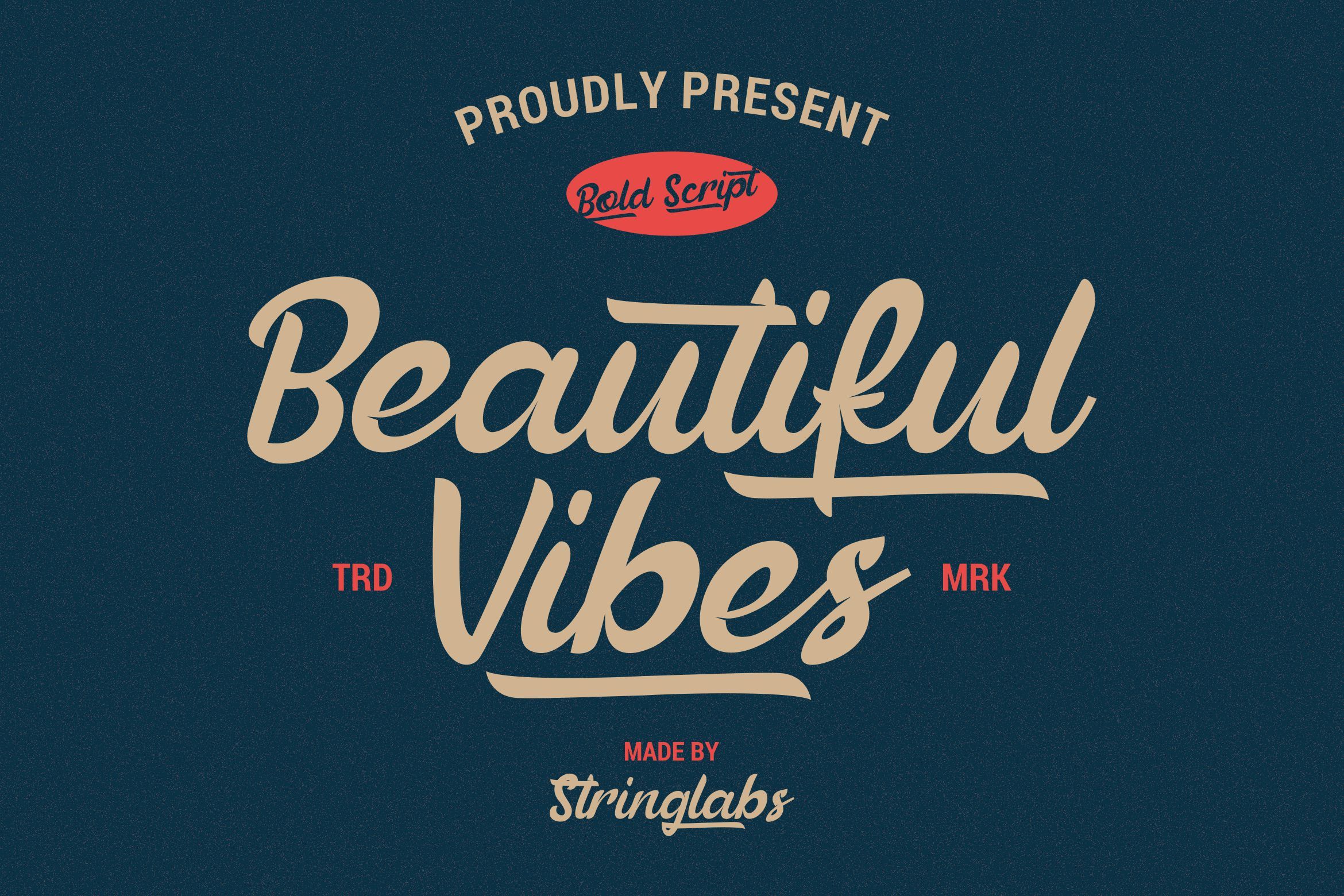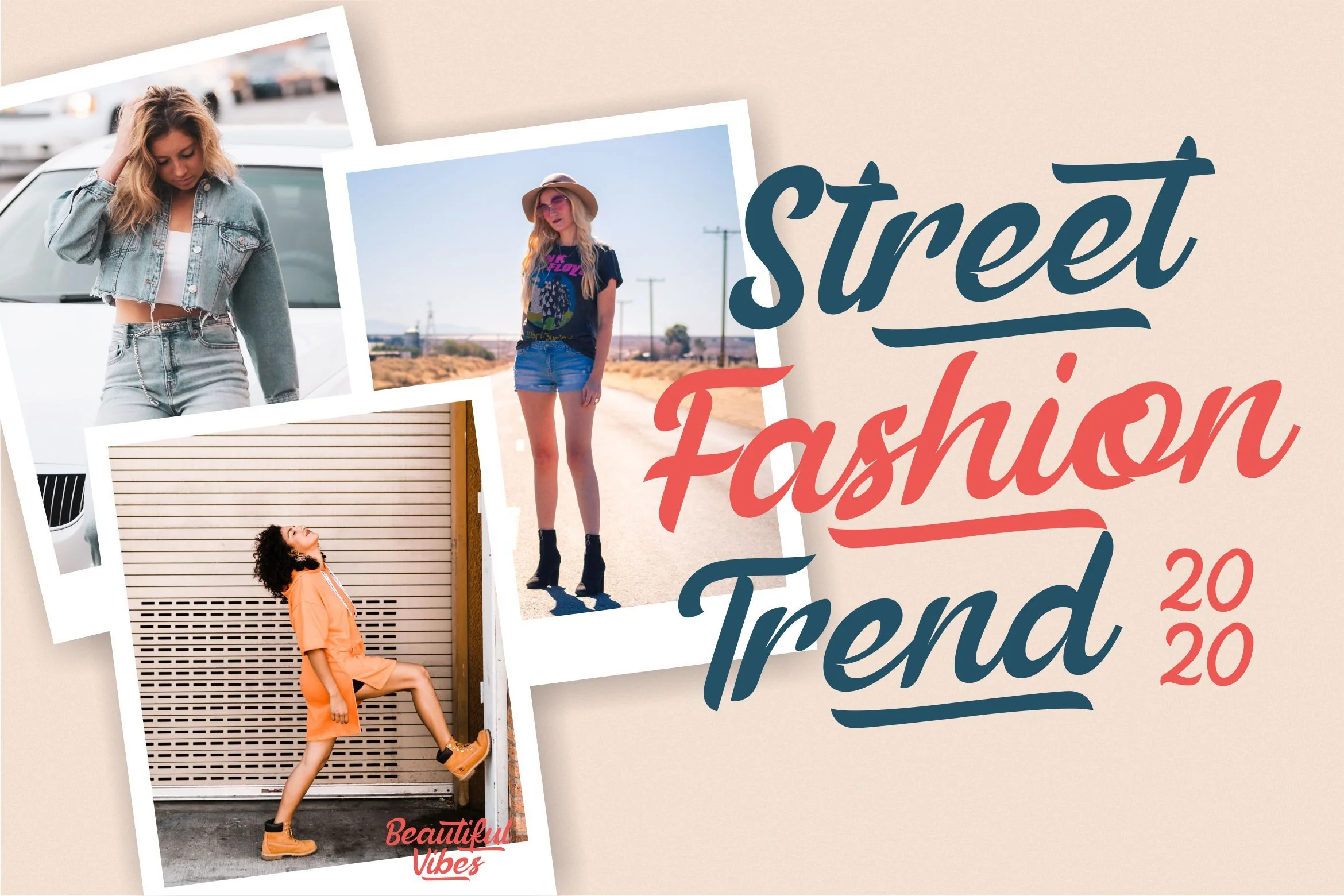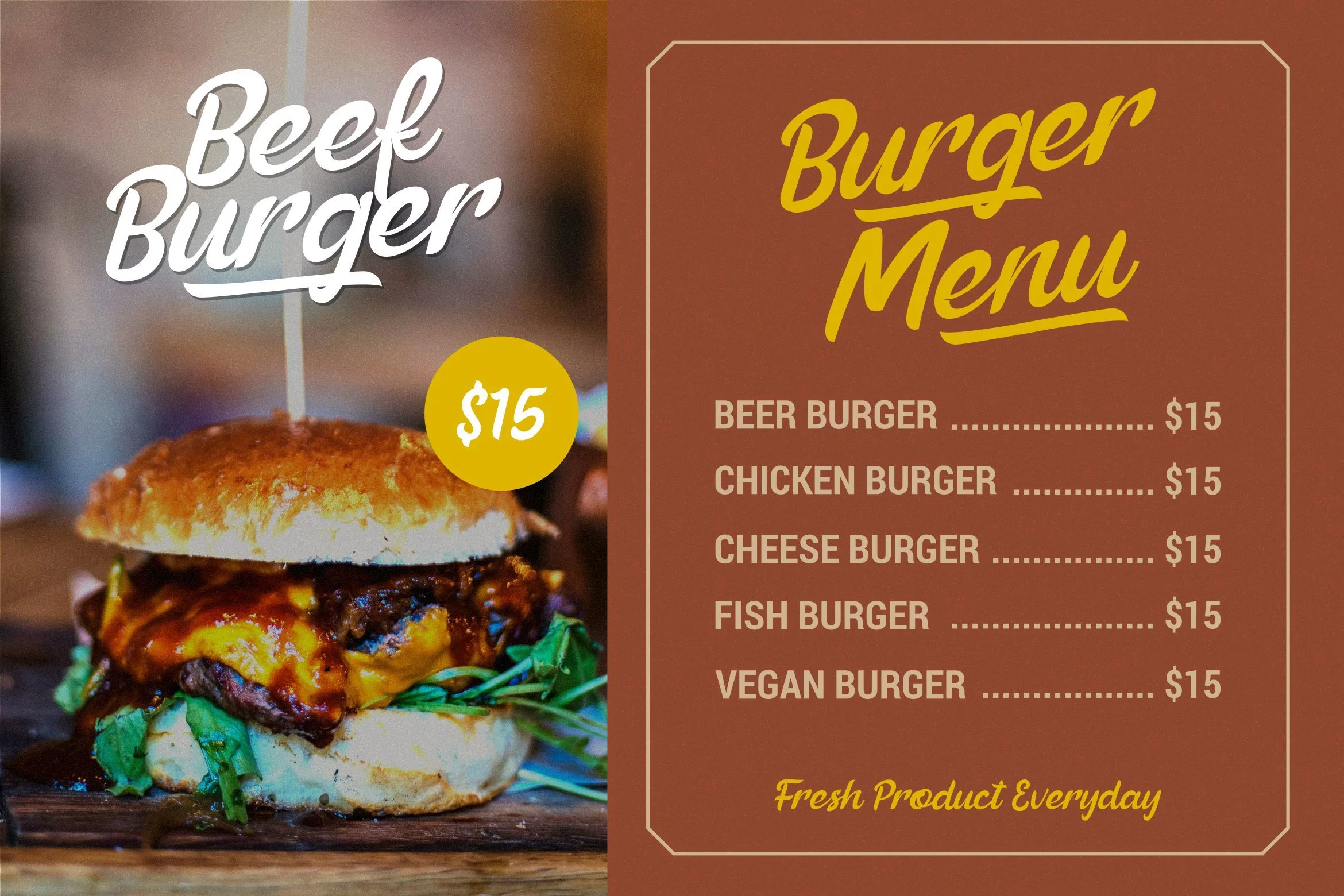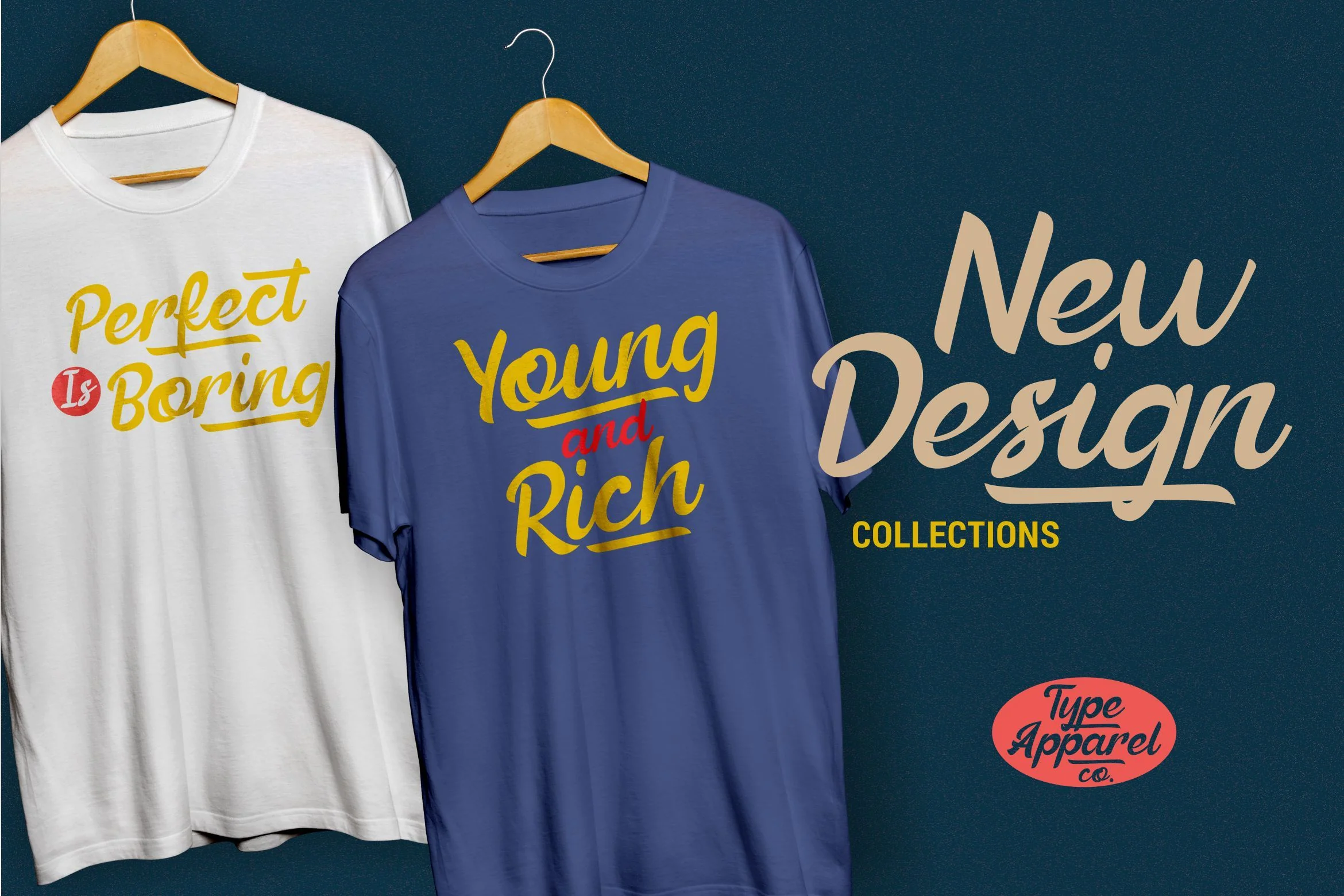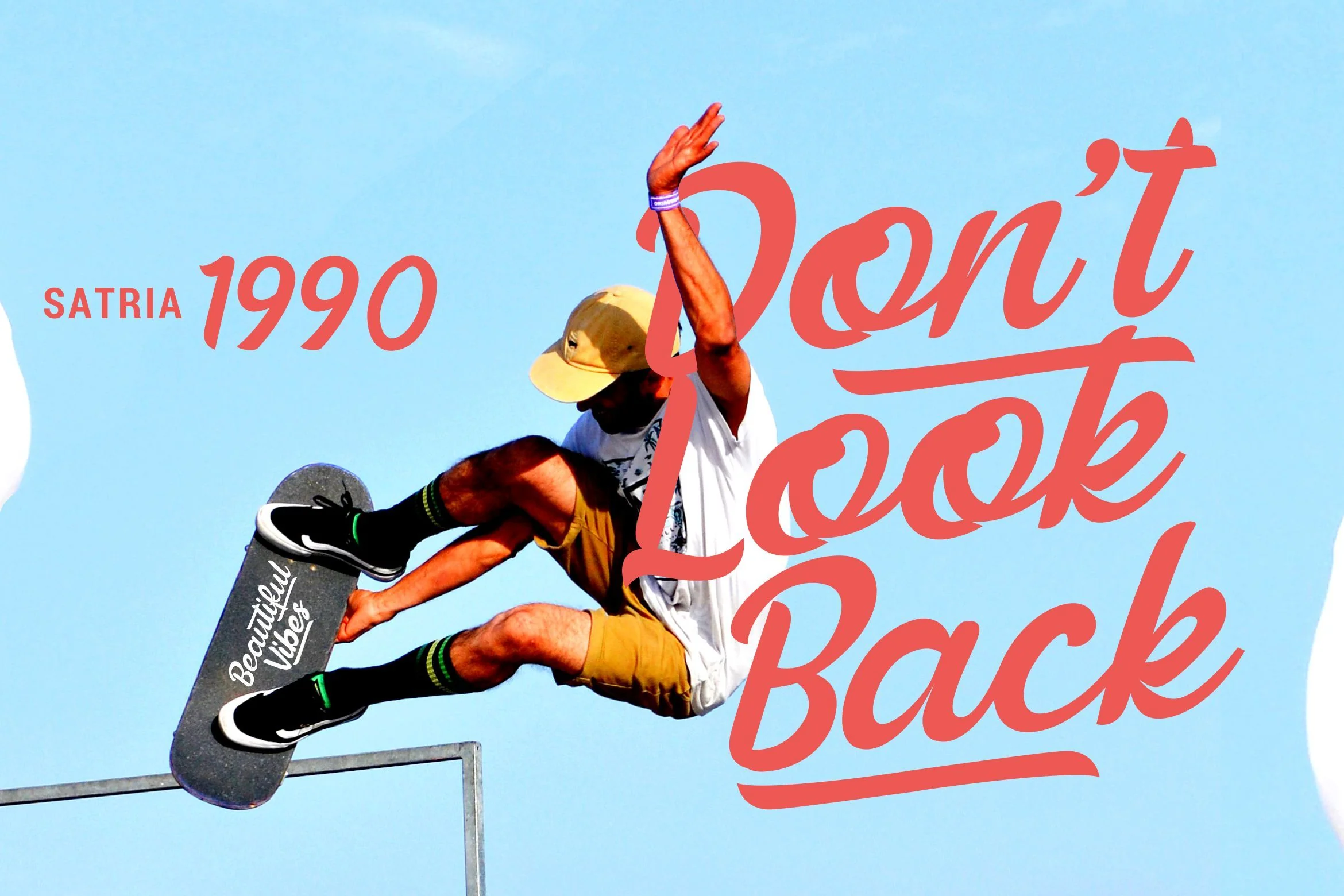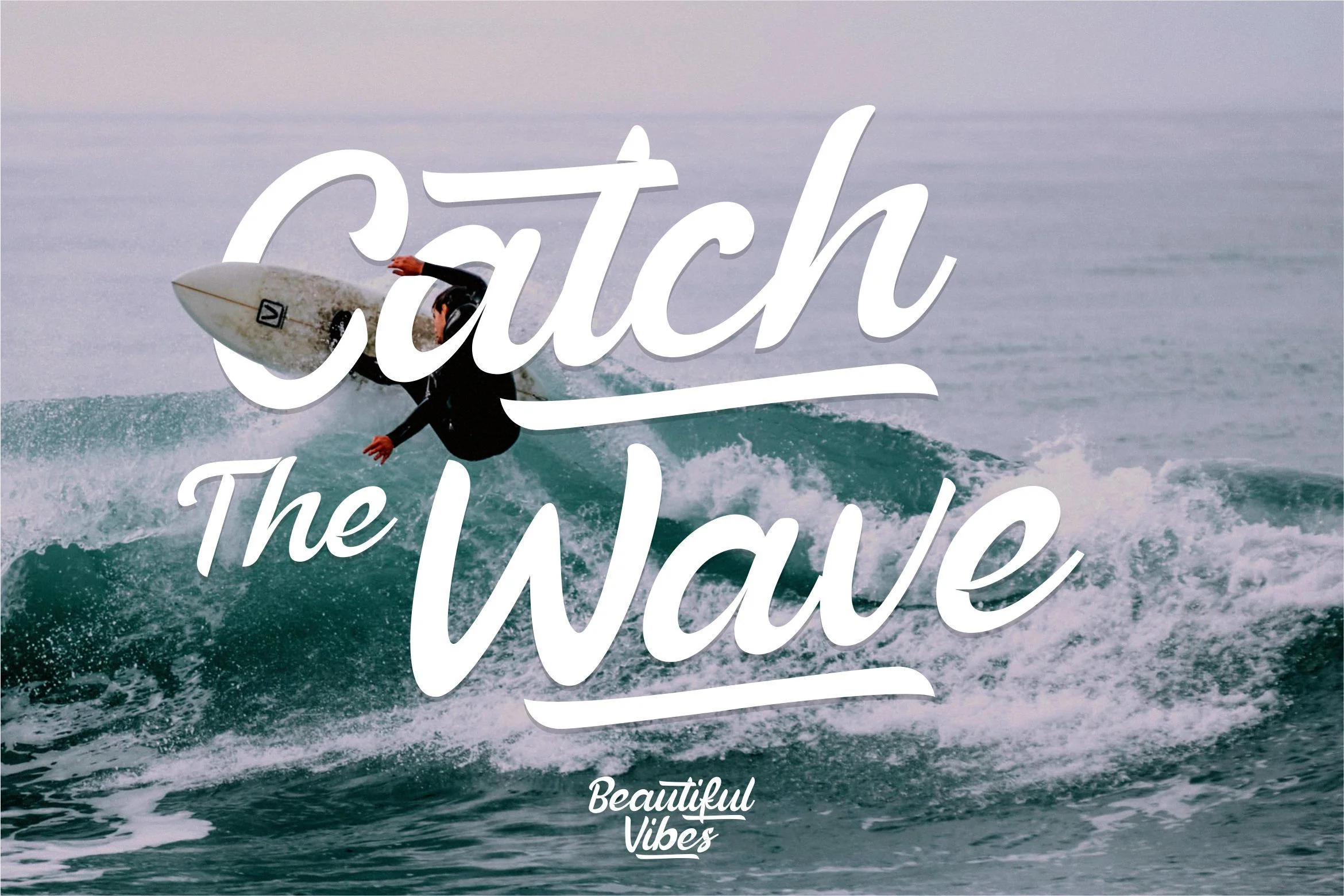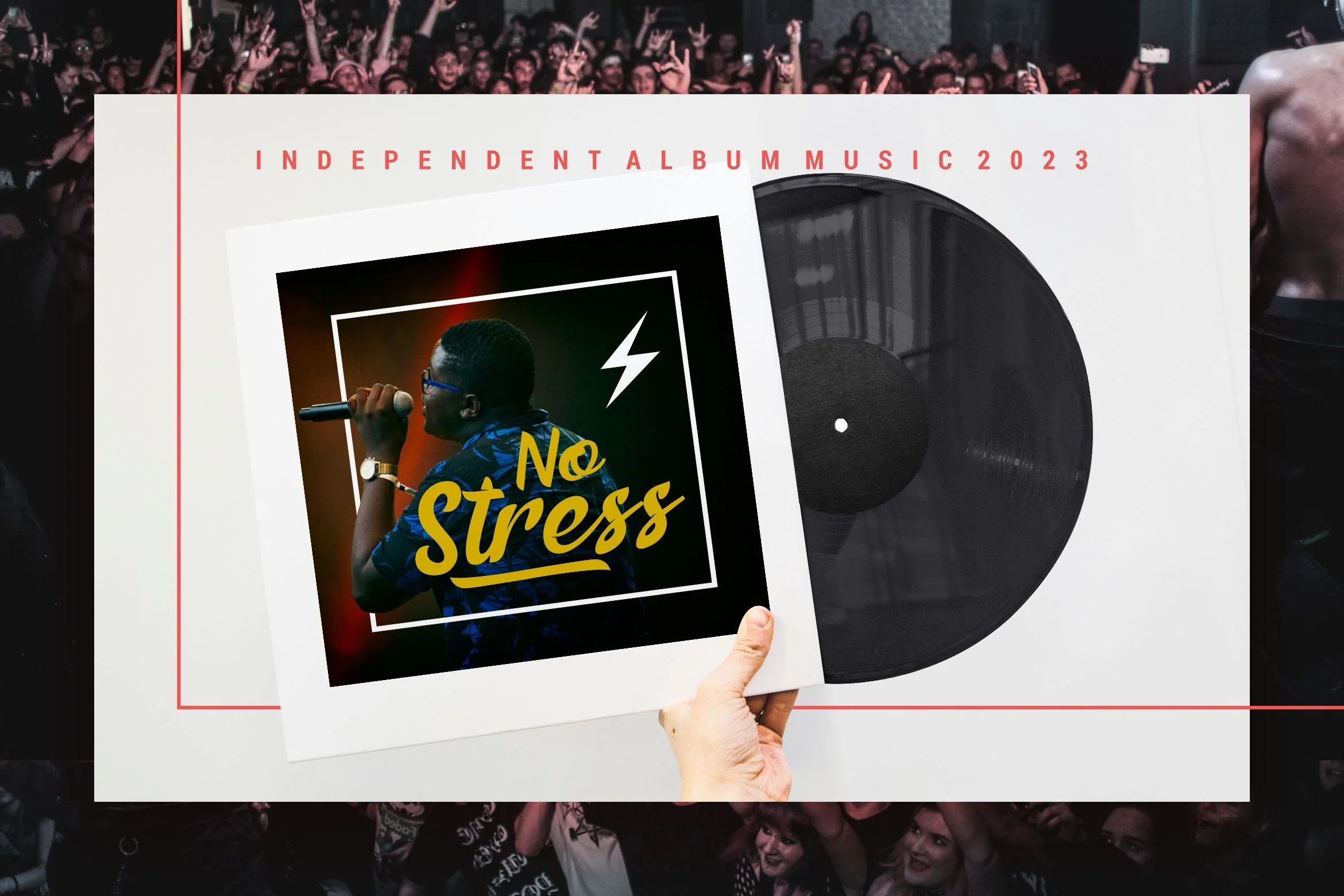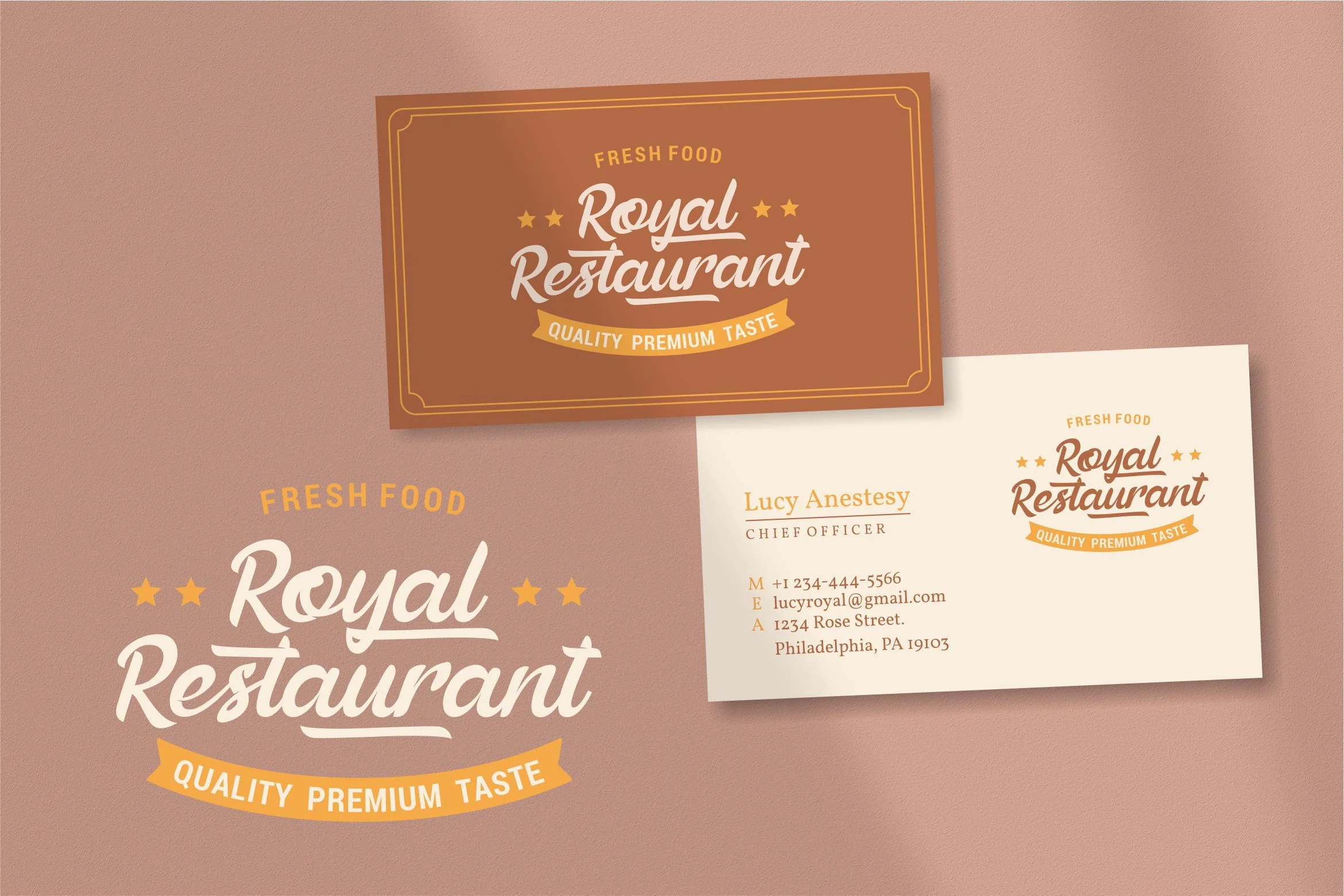
Beautiful Vibes - Bold Script Vintage Retro Font
Introducing Beautiful Vibes - Bold Script Vintage Retro Font
Beautiful Vibes is a bold script font with unique design taste and a classic retro style of the 80s, trendy, vintage, and sporty. Beautiful Vibes is perfect for vintage lovers, besides this font is also perfect if used for brands such as: barbershop, motorcycle club, clothing, coffee shop, shoe brands, vapor shop, hipster and many more.
This Font Template contains Classy, Elegant, Creative, Cool and has a Unique Concept.